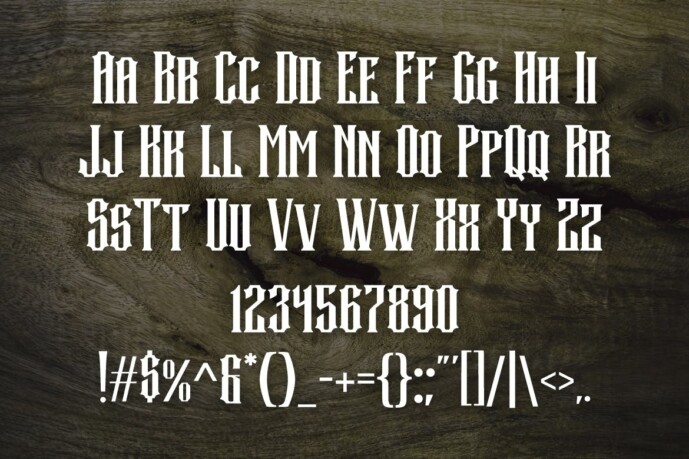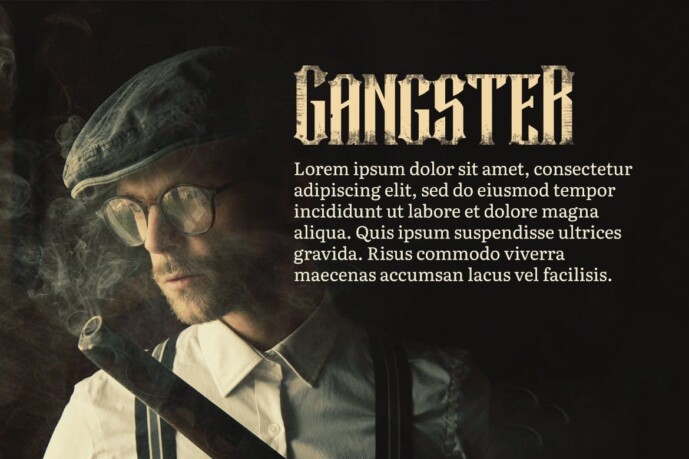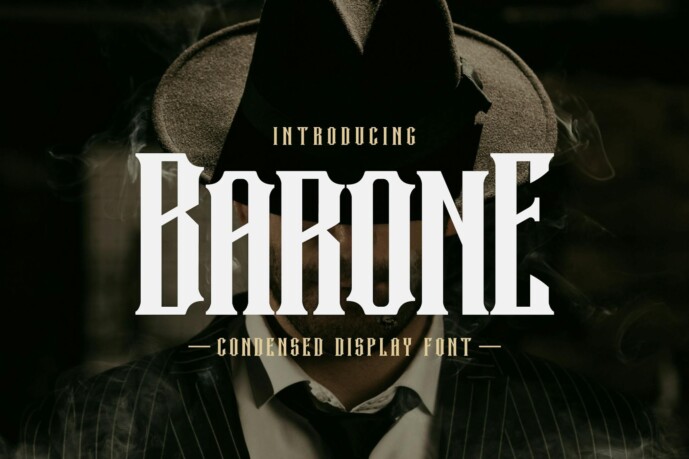
Barone Font
Designer: hardseems
Barone Font is a bold, condensed serif typeface inspired by the gangster era. Perfect for posters, brands, and headlines that need a vintage touch and authority.